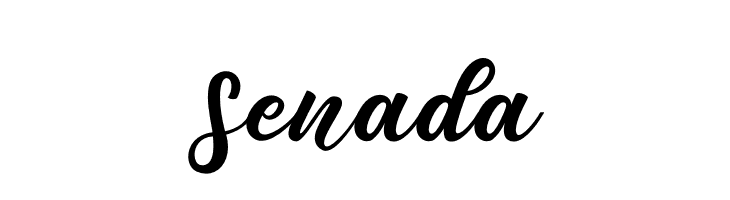
( Fonts by Tokopress )
Tall, narrow handwritten script with a casual, energetic feel.
( Fonts by DeNada Industries )
A bold, expressive script font with playful curves and dynamic flow.
( Fonts by DeNada Industries - Mike Allard )
A bold, calligraphic font with dramatic strokes and angular edges.
( Fonts by DeNada Industries - Mike Allard )
A flowing, elegant cursive font with ornate uppercase and smooth lowercase letters.
( Fonts by DeNada Industries - Mike Allard )
A decorative script font with a modern, calligraphic flair.
( Fonts by DeNada Industries - Mike Allard )
A bold, Gothic-style font with intricate detailing and a modern twist.
( Fonts by DeNada Industries - Mike Allard )
A bold, geometric font with a modern and slightly condensed style.
( Fonts by DeNada Industries )
A bold, edgy font with sharp, jagged edges and a distressed style.
( Fonts by DeNada Industries )
A bold, playful font with a hand-drawn, whimsical style.
( Fonts by DeNada Industries )
A bold, angular font with high contrast and a modern, dramatic style.
( Fonts by DeNada Industries - Mike Allard )
A bold, dynamic script font with a playful and energetic style.
( Fonts by Daniel Gauthier )
A bold, industrial-style font with a 3D effect and rivet details.
( Fonts by DeNada Industries - Mike Allard )
A decorative Gothic font with intricate flourishes and modern elements.
( Fonts by DeNada Industries )
An elegant script font with flowing, connected letters and ornate flourishes.
( Fonts by DeNada Industries - Mike Allard )
A decorative cursive font with elegant loops and swashes.
( Fonts by DeNada Industries )
A bold, modern font with geometric forms and elegant flow.
( Fonts by DeNada Industries )
A sophisticated script font with flowing, ornate cursive letters and elegant swashes.
( Fonts by DeNada Industries )
A classic serif font with elegant curves and bold presence.
( Fonts by DeNada Industries - Mike Allard )
A flowing, cursive font with smooth, rounded edges and a dynamic slant.
( Fonts by Kreative Korporation - www.kreativekorp.com )
A clean, modern geometric font with consistent stroke width.
A bold, geometric font with characters encased in hexagonal shapes, offering a modern and playful aesthetic.